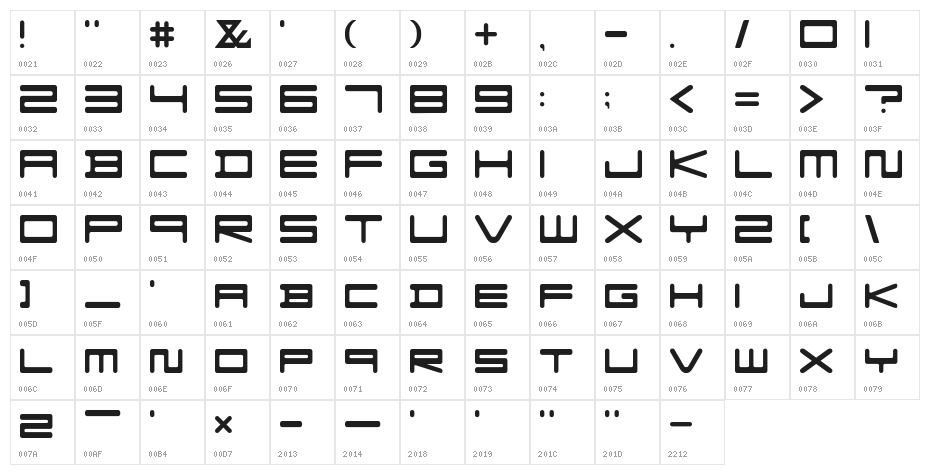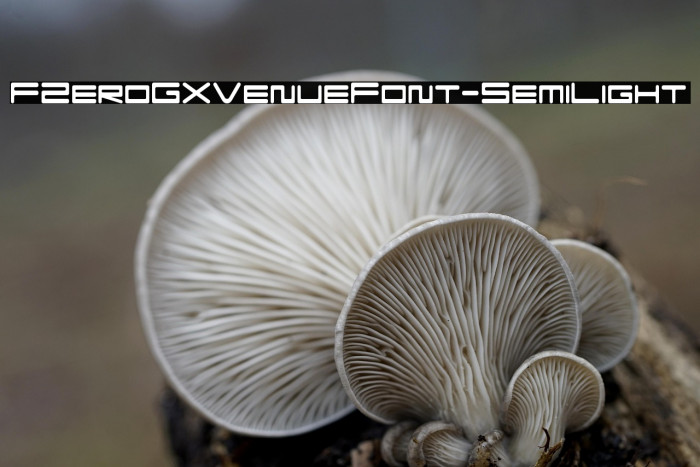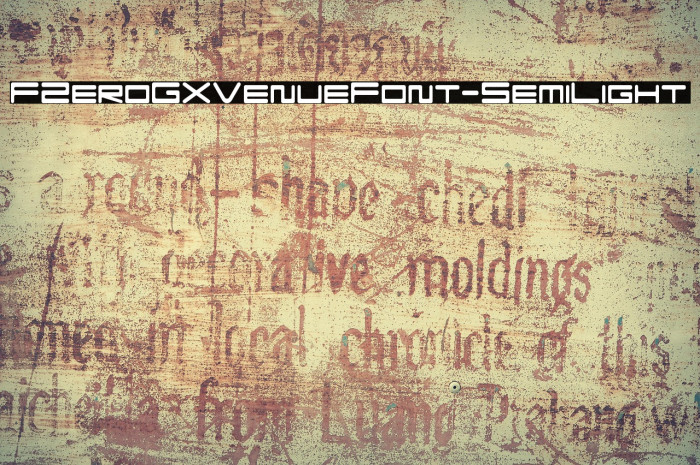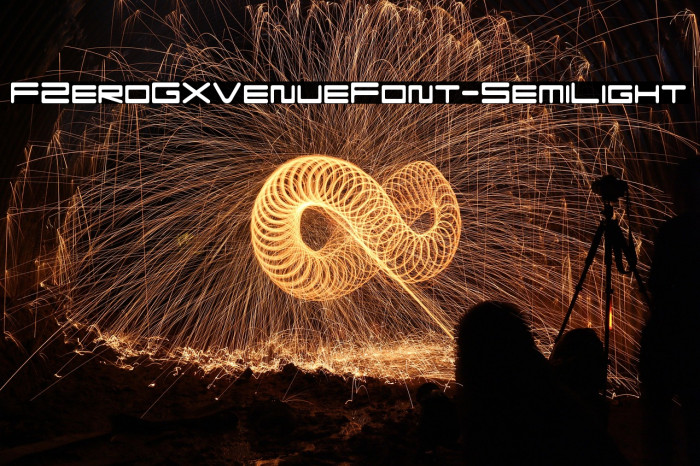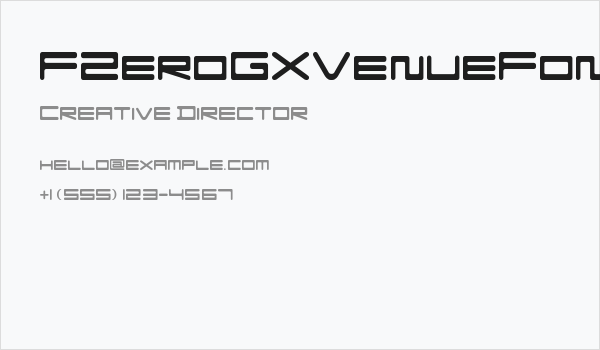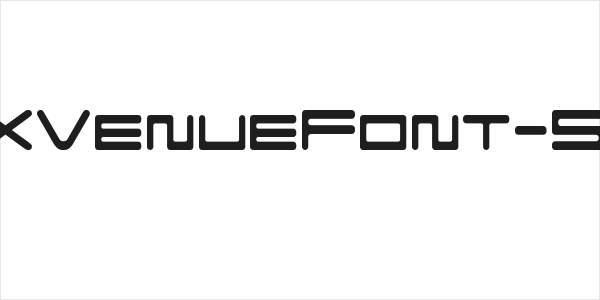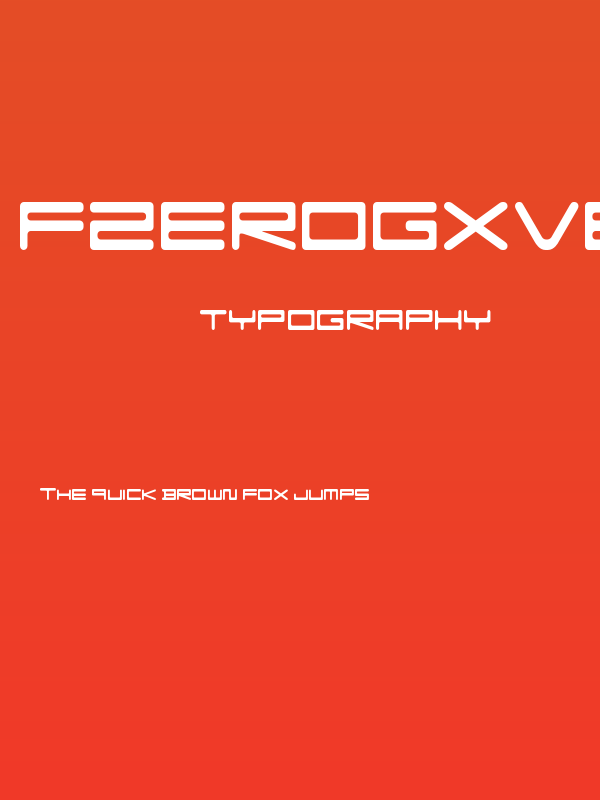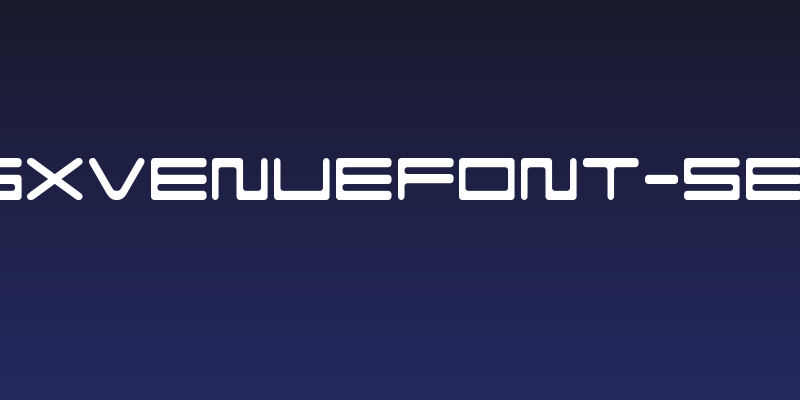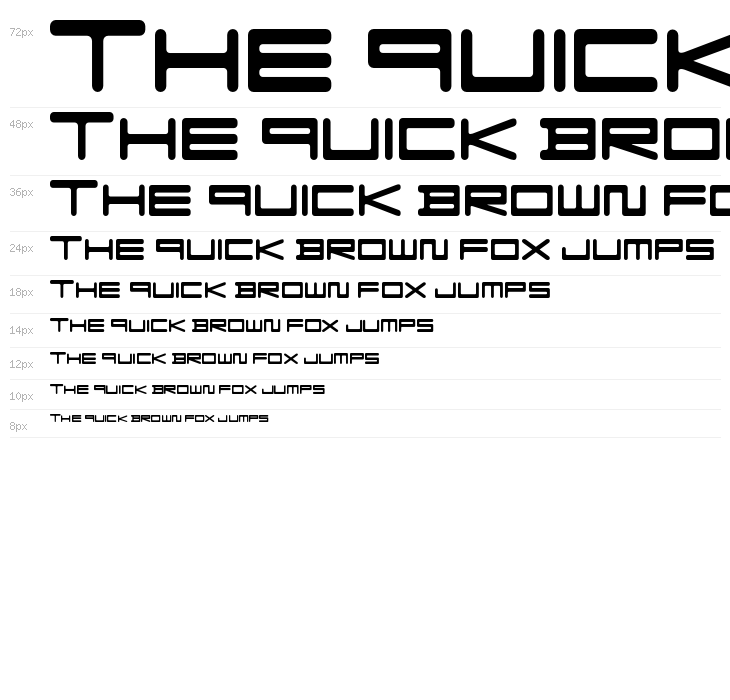
FZeroGXVenueFont-SemiLight Font
FZeroGXVenueFont-SemiLight Description
This font features a futuristic and geometric design, characterized by its rounded edges and uniform line thickness. The characters are constructed with a consistent width, giving it a monospaced appearance, yet maintaining a modern and sleek aesthetic. The uppercase and lowercase letters share similar structural elements, enhancing the font's cohesive look. The numerals and special characters are designed to match the overall style, providing a seamless integration across all glyphs. Its clean and minimalistic design makes it suitable for digital interfaces and technology-related projects.
| Use Case | Logos, Headlines, Digital Interfaces |
| Proposed Projects | Ideal for technology branding, digital interfaces, video game design, and sci-fi themed projects. |